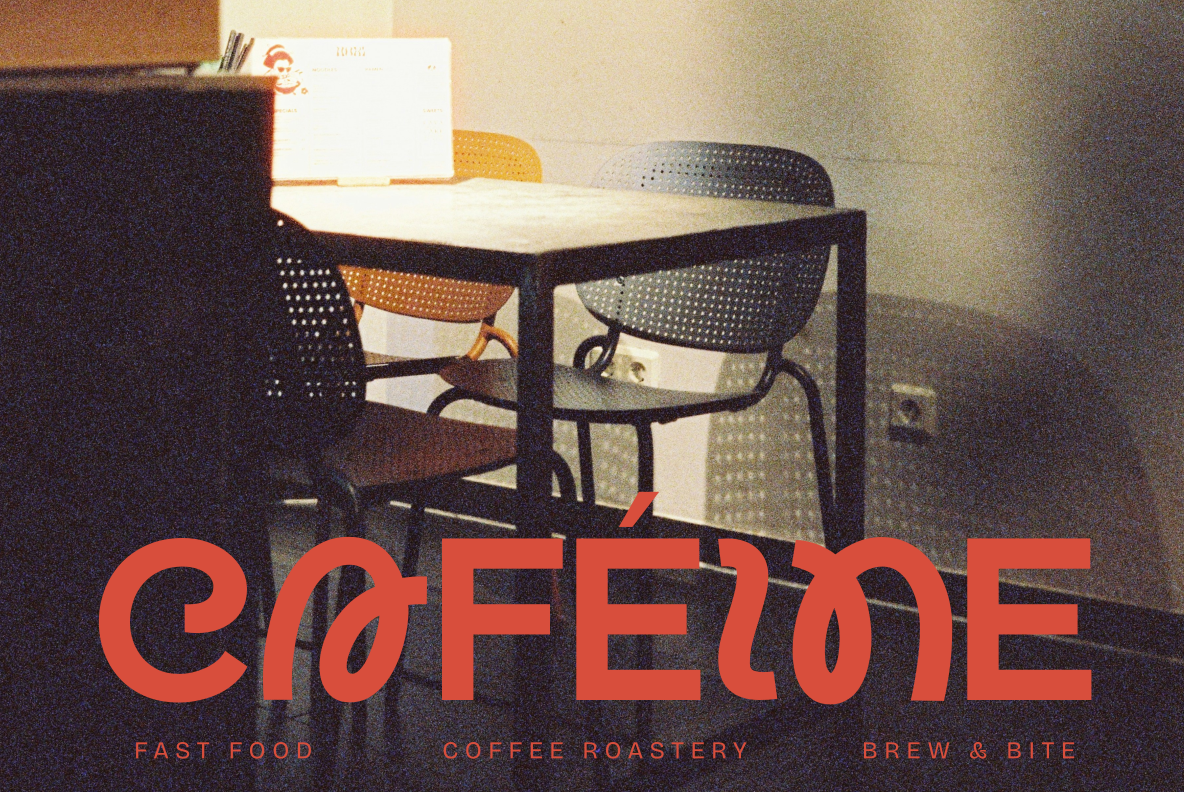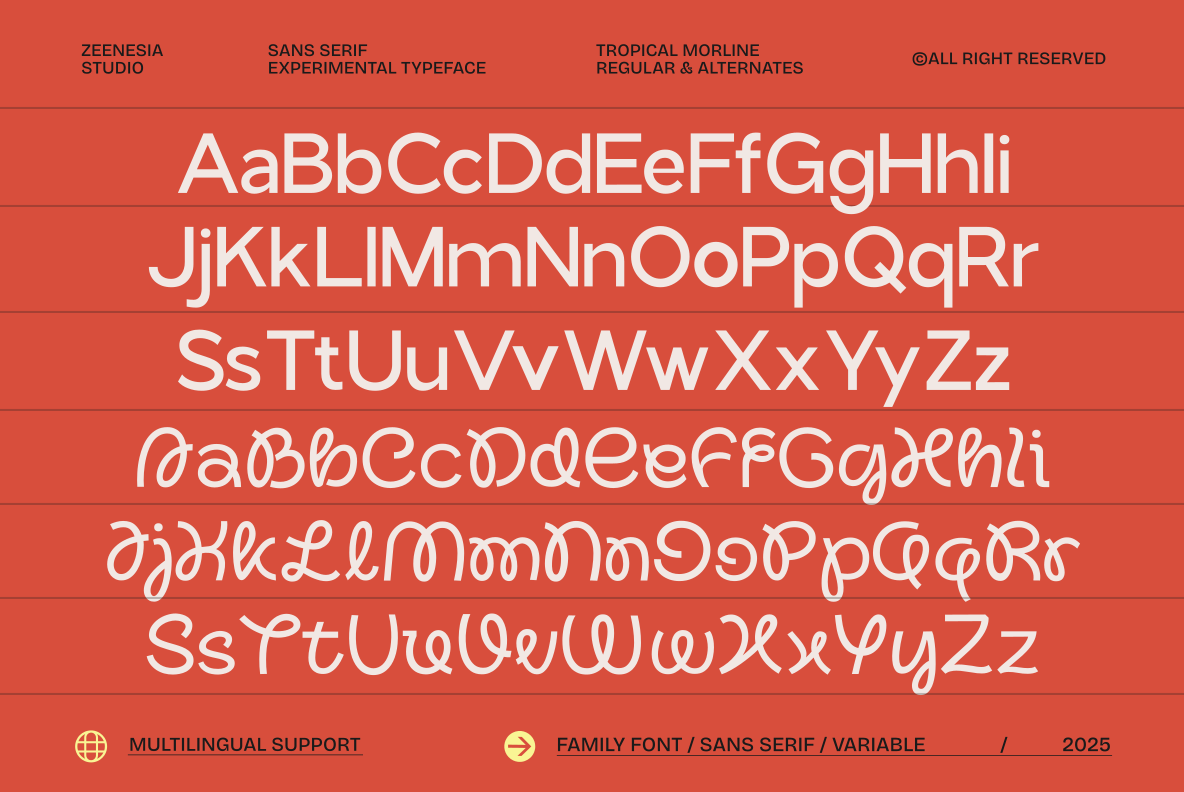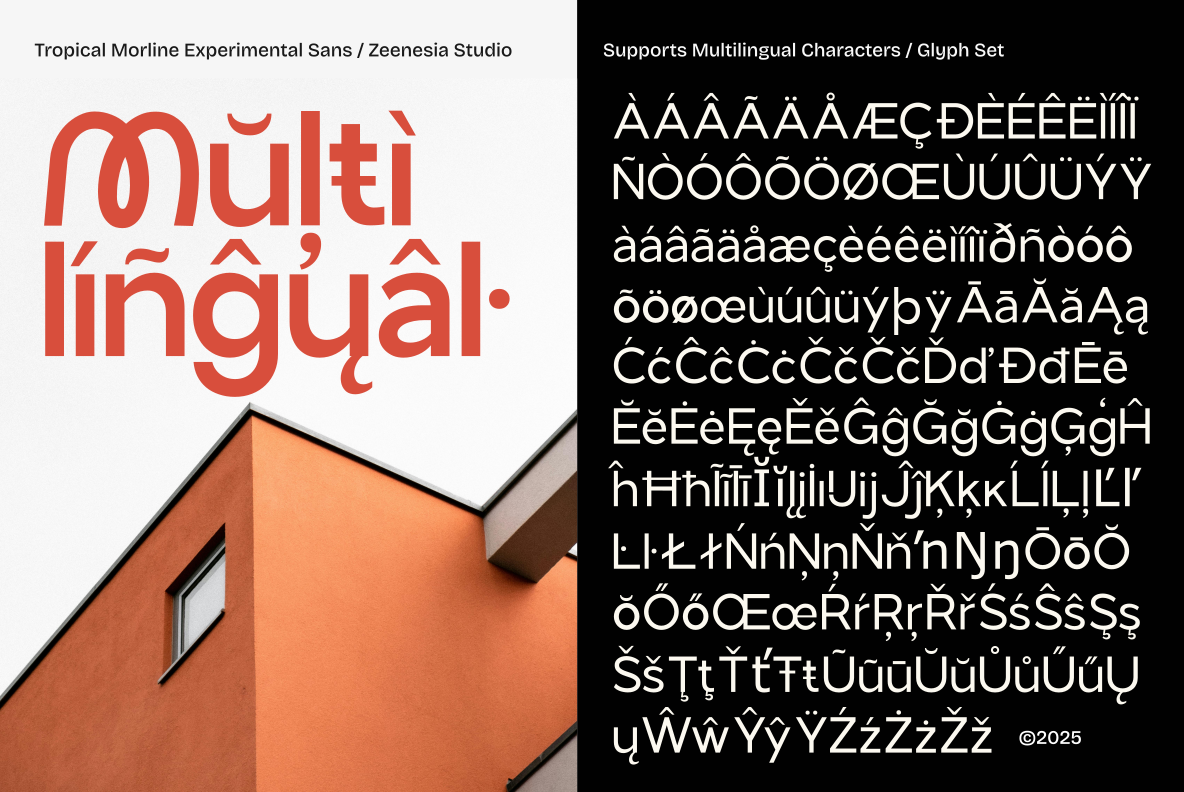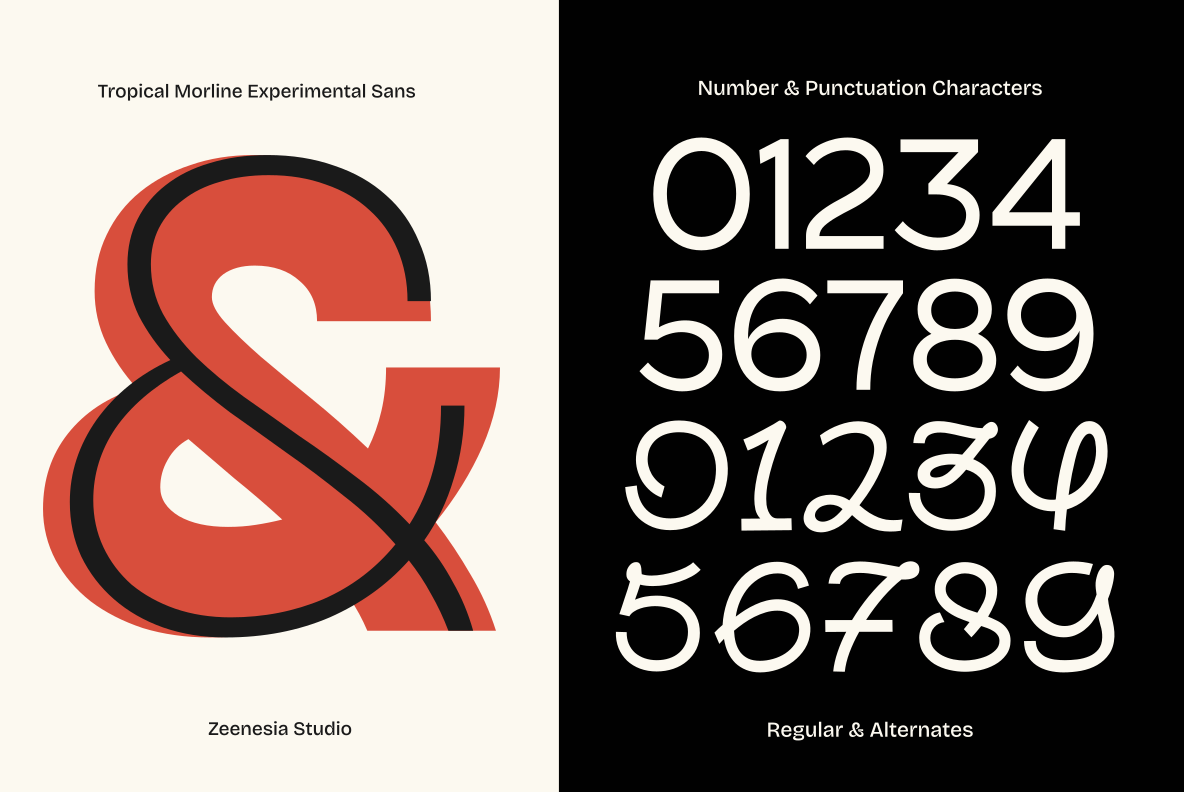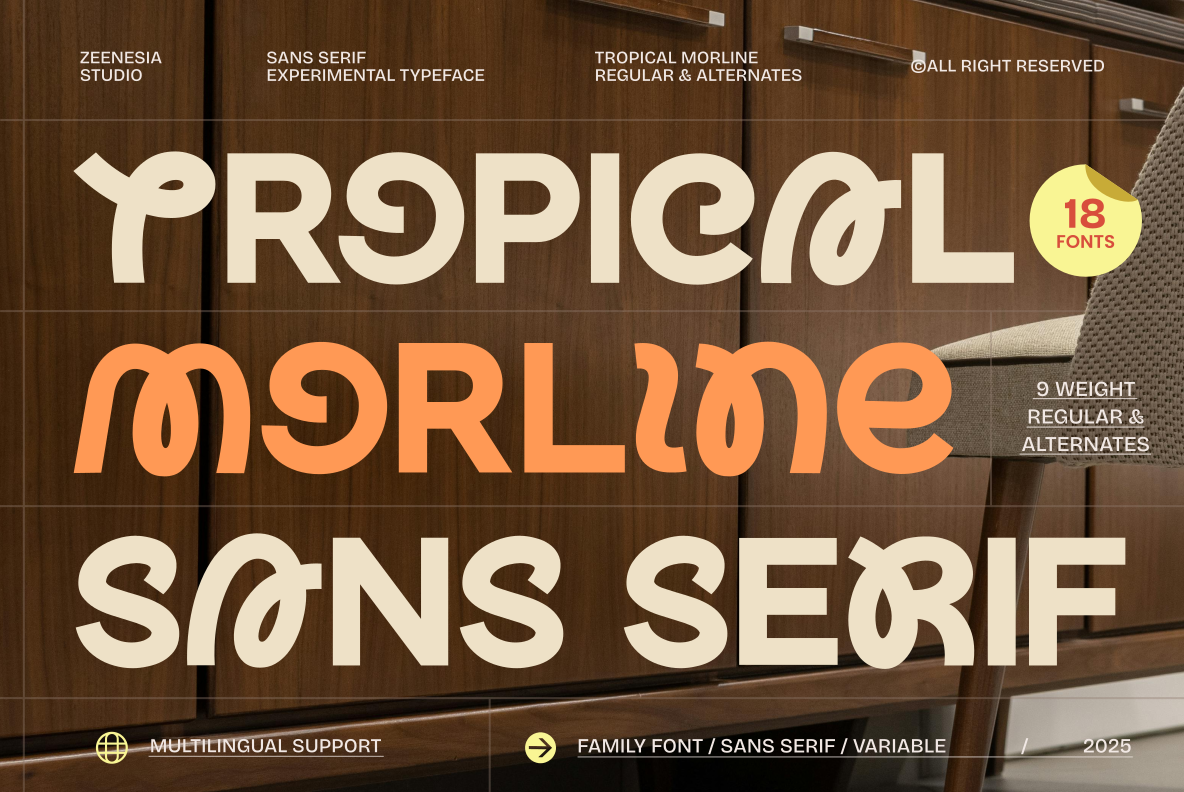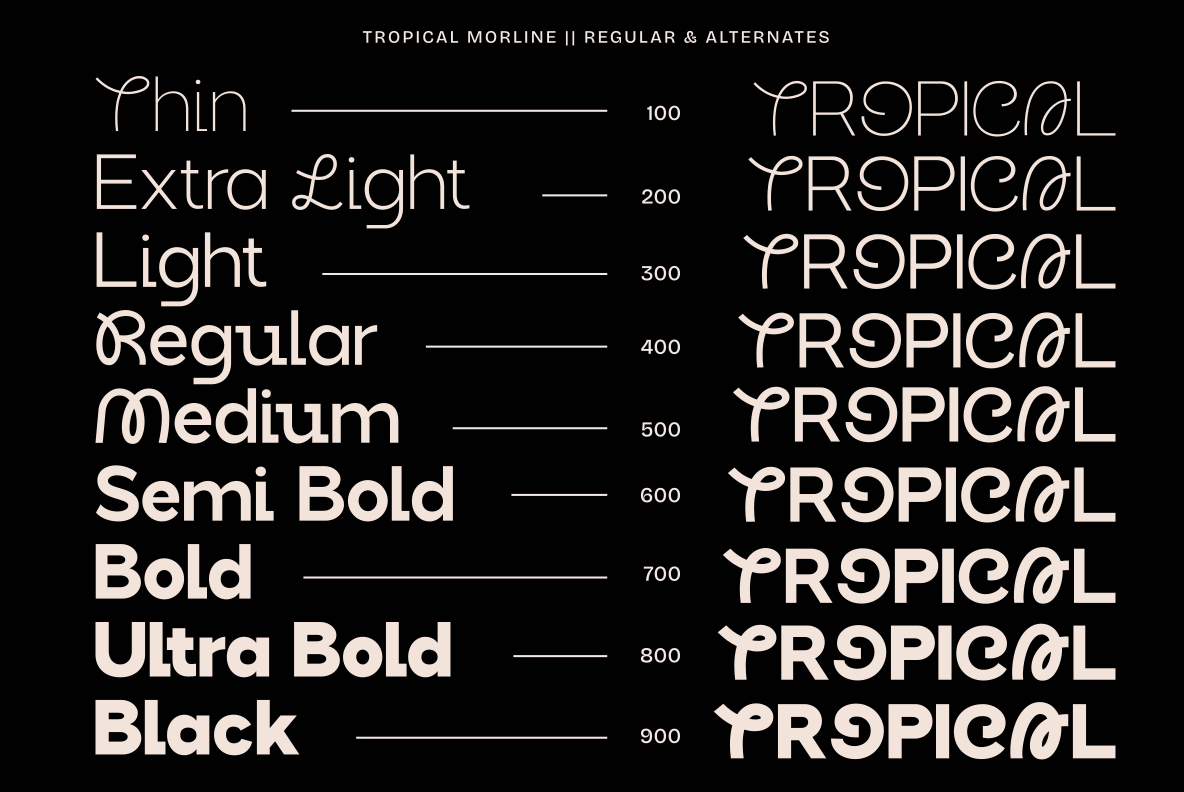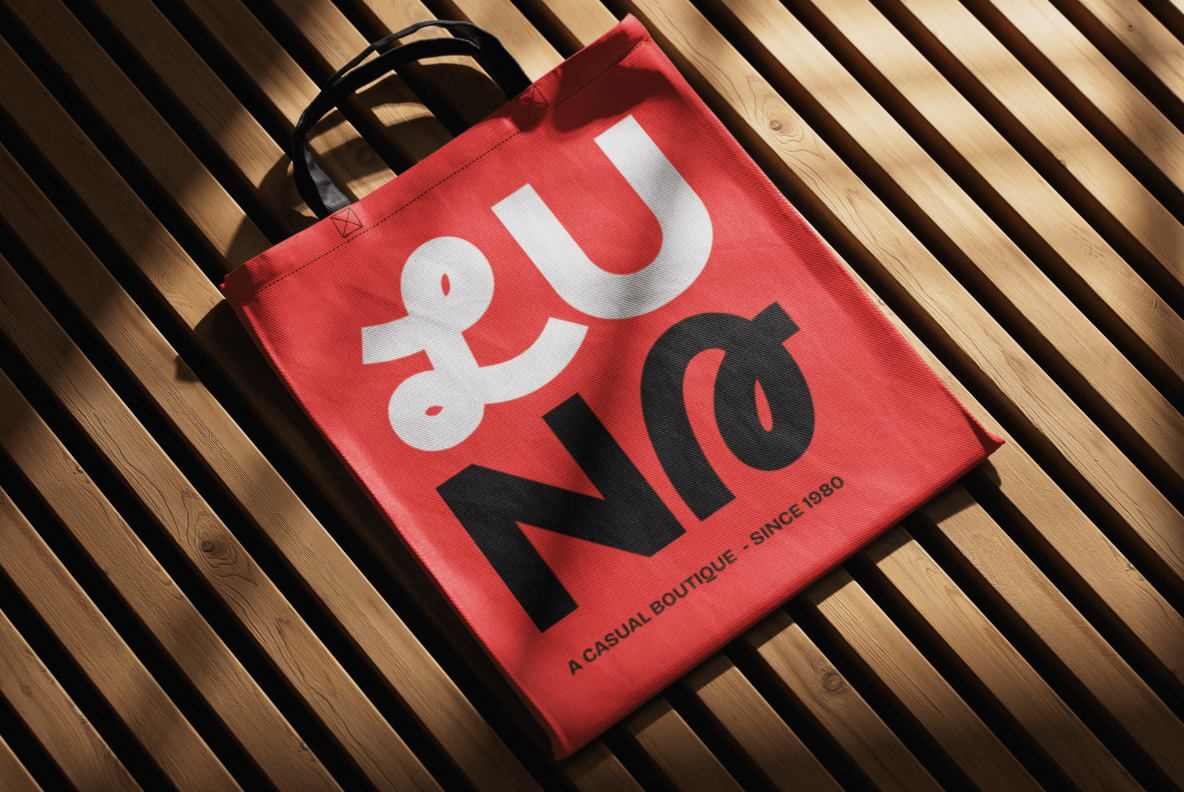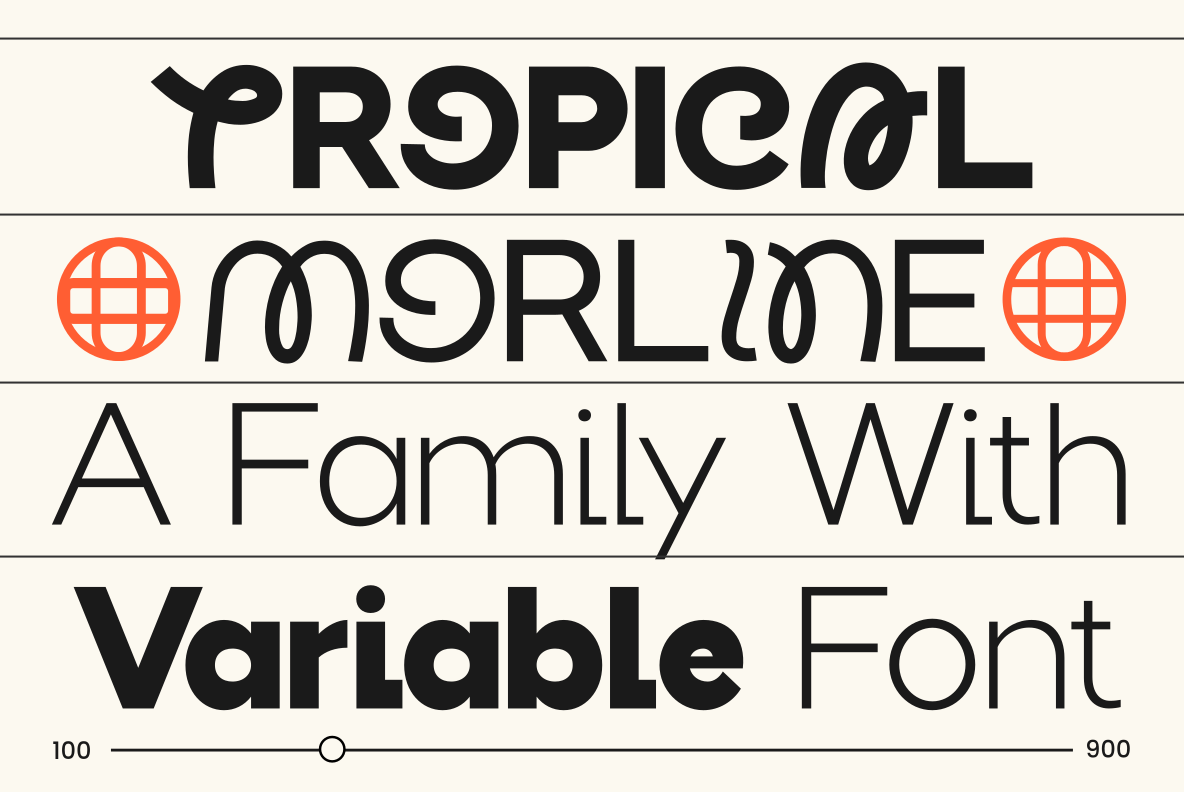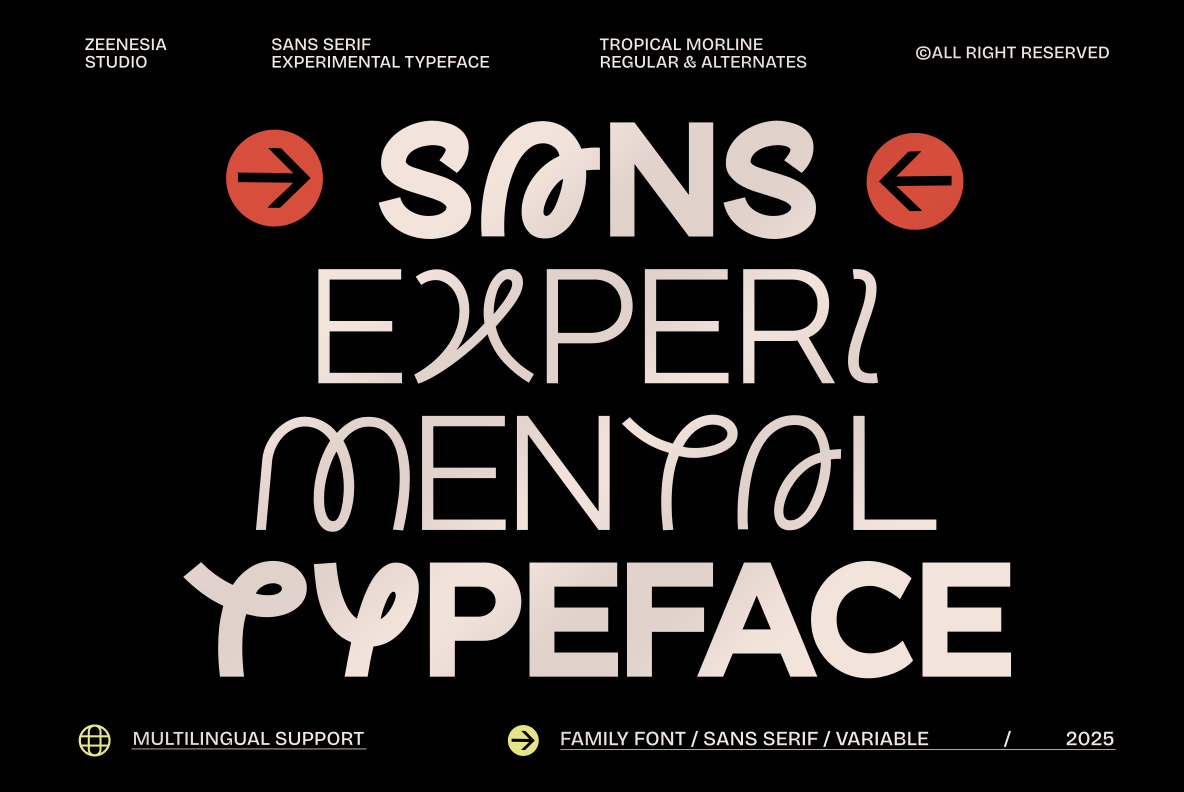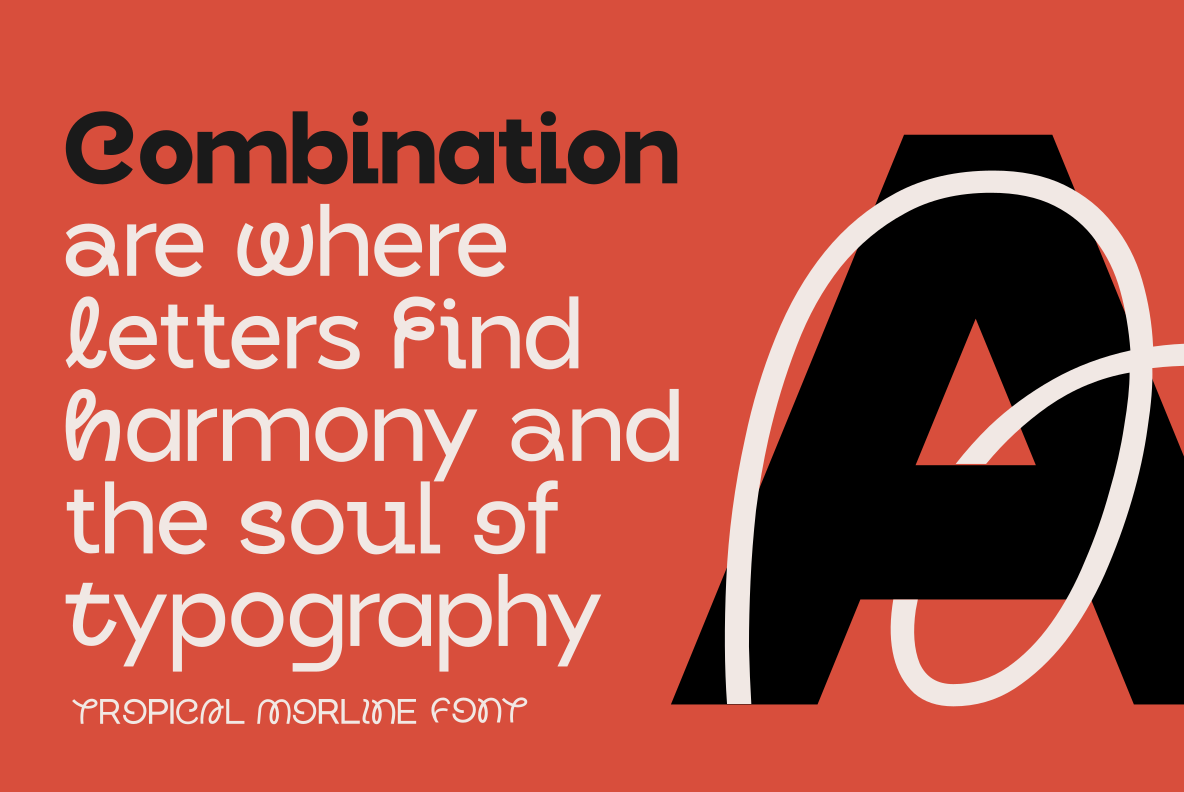
Tropical Morline is an experimental sans serif typeface inspired by playful tropical energy and expressive letterforms. Designed with soft curves, bold proportions, and distinctive alternates, it brings a fresh and joyful personality to any design.
This typeface features 2 styles — Regular and Alternate, along with 9 weights ranging from Thin to Black, giving designers full flexibility for both subtle and bold visual expressions. It also includes a Variable Font, making it easy to adjust weight seamlessly for modern workflows.
With rich alternate characters and carefully crafted letterforms, Tropical Morline allows designers to create dynamic, eye-catching compositions while maintaining strong readability and a decorative yet modern feel.
Perfect for branding, posters, packaging, headlines, editorial layouts, and creative projects that demand character and warmth, Tropical Morline stands out without losing versatility. Multilingual support is included.
Tropical Morline — where experimental form meets tropical charm.